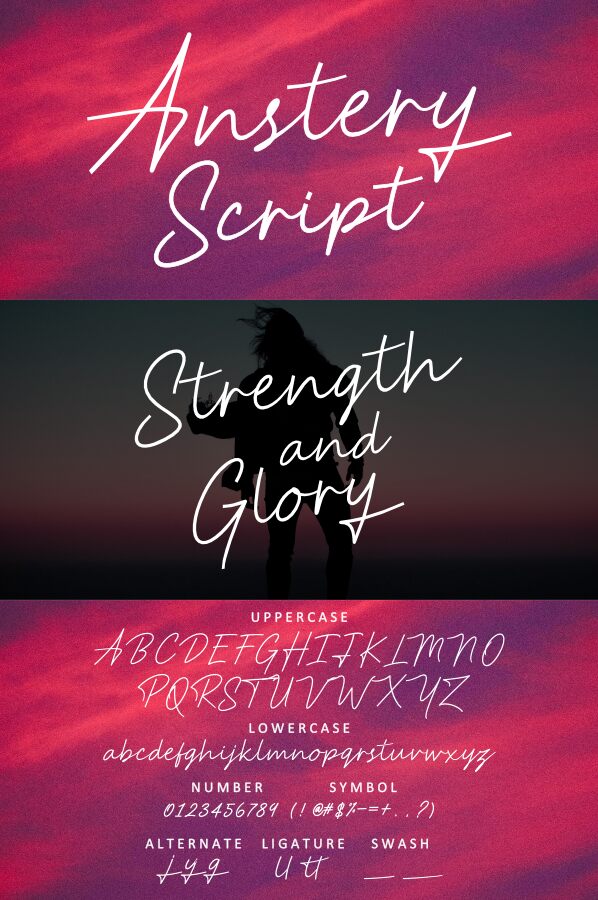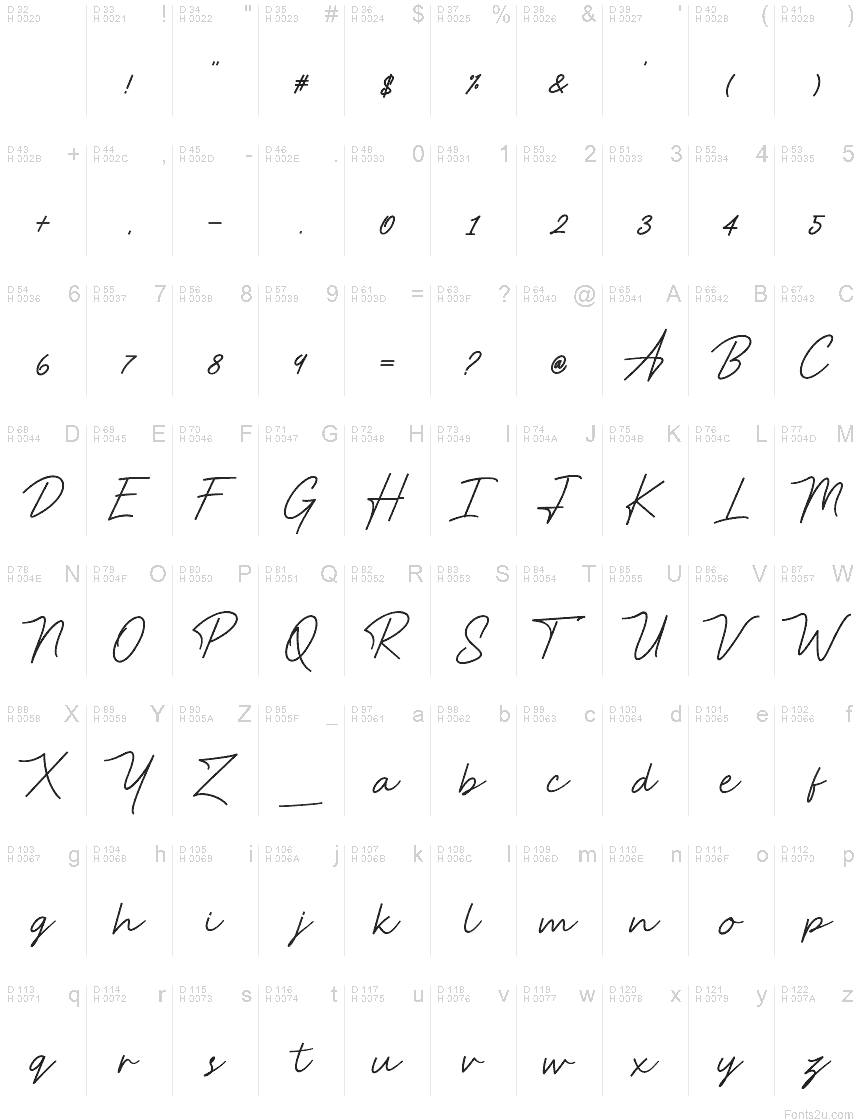
Anstery Script
Anstery Script is a simple script typeface which is simple. This font is perfect as a logo, quotes, apparel design, wedding invitation, and many more. You can use the alternate to create your own customized lettering.